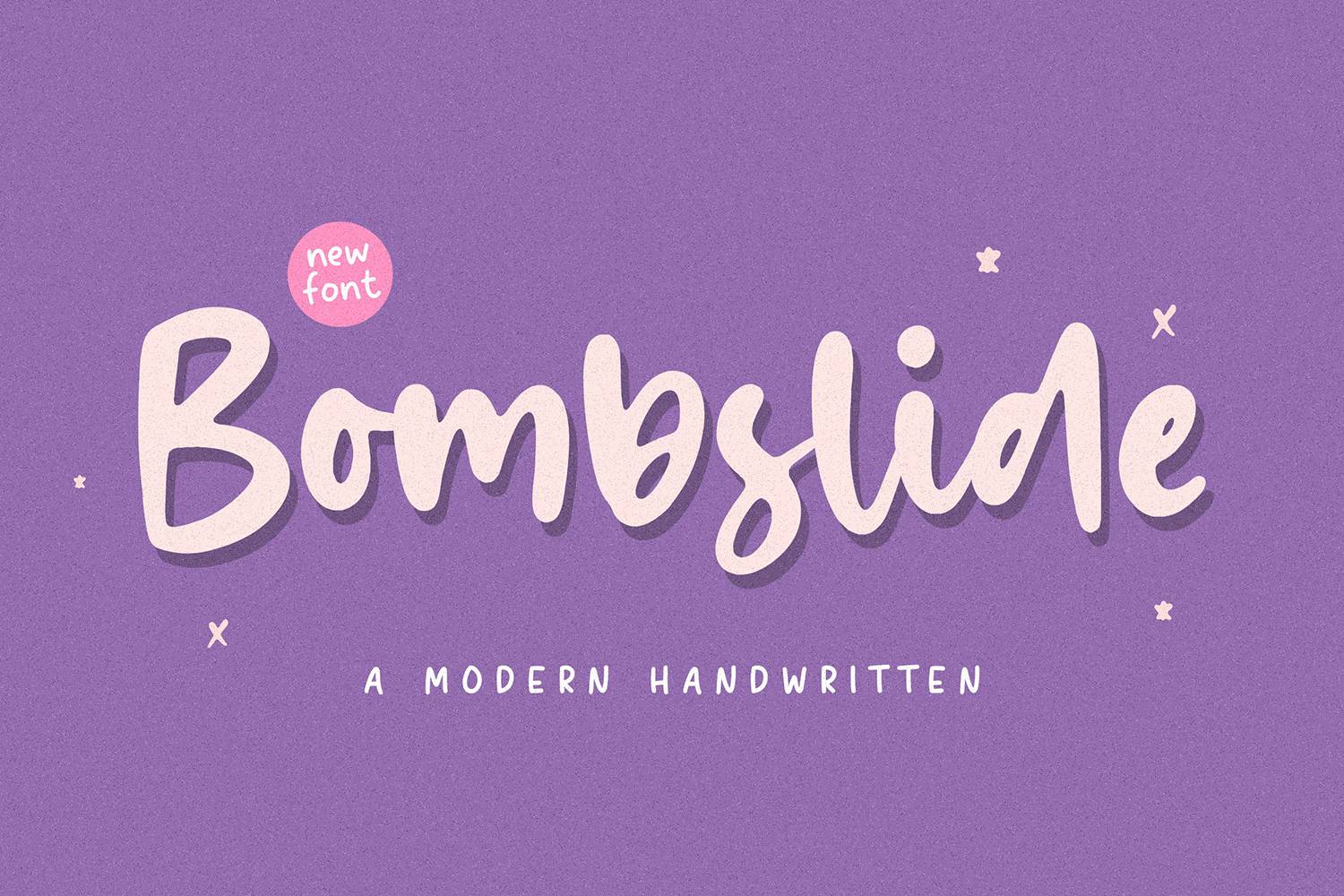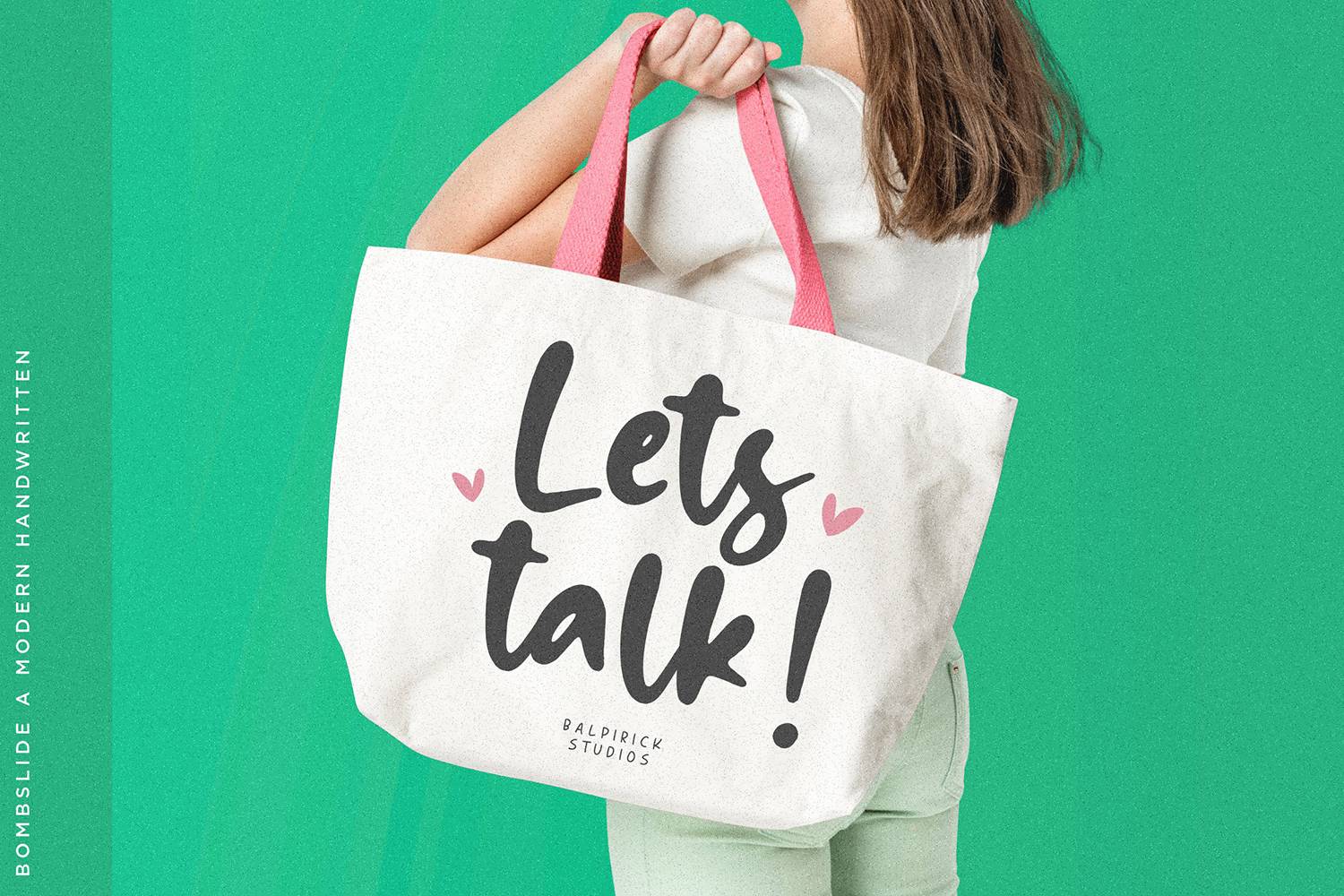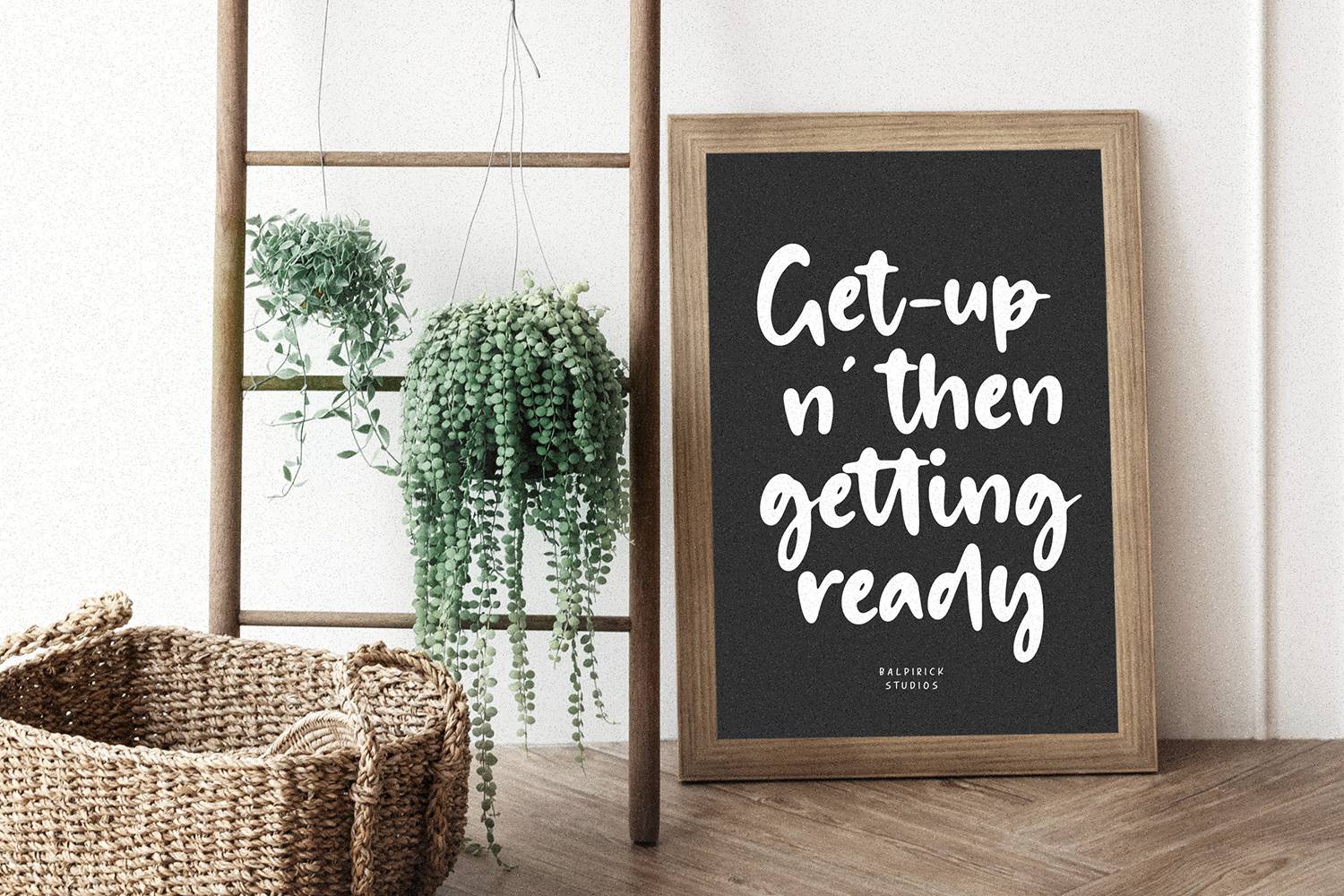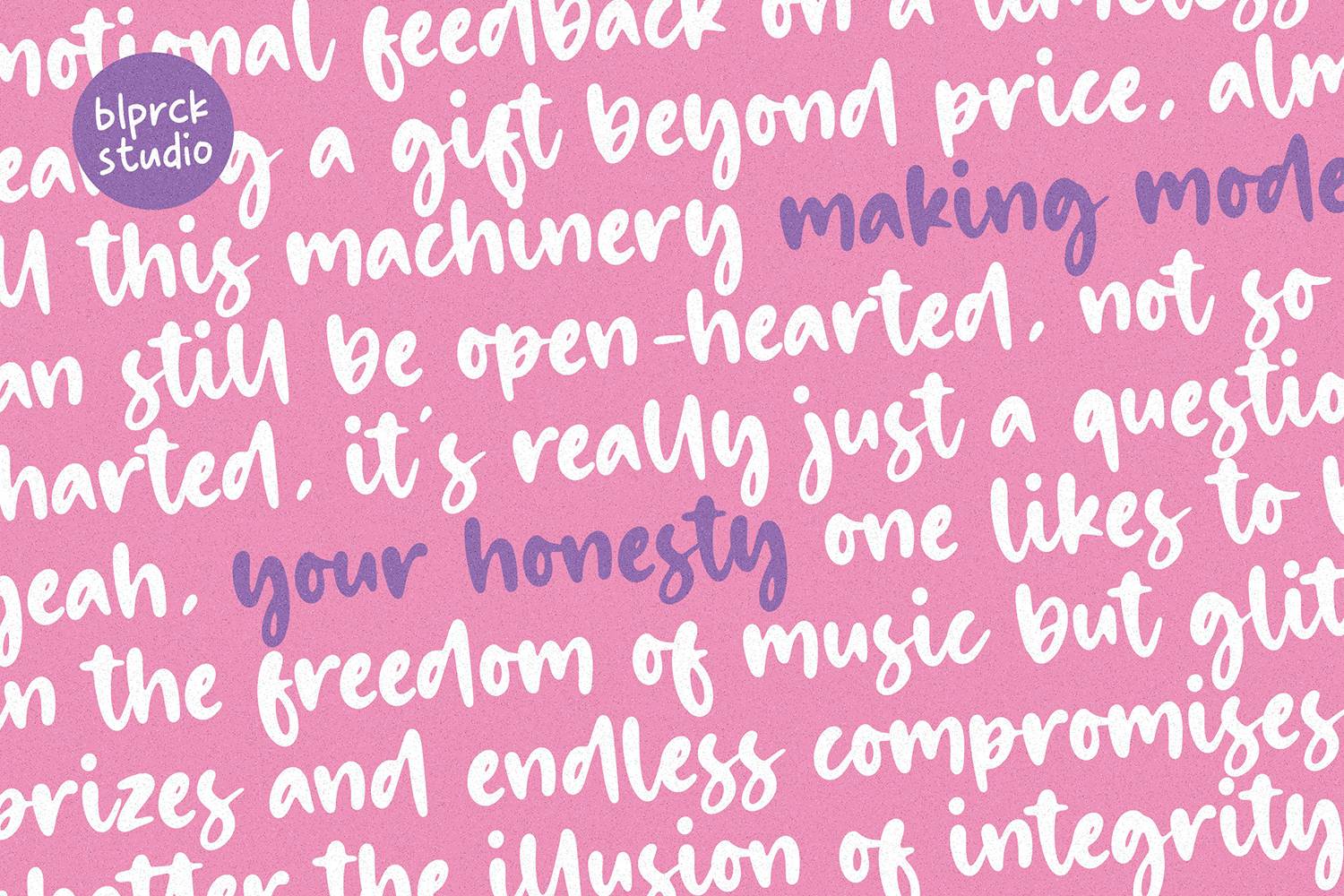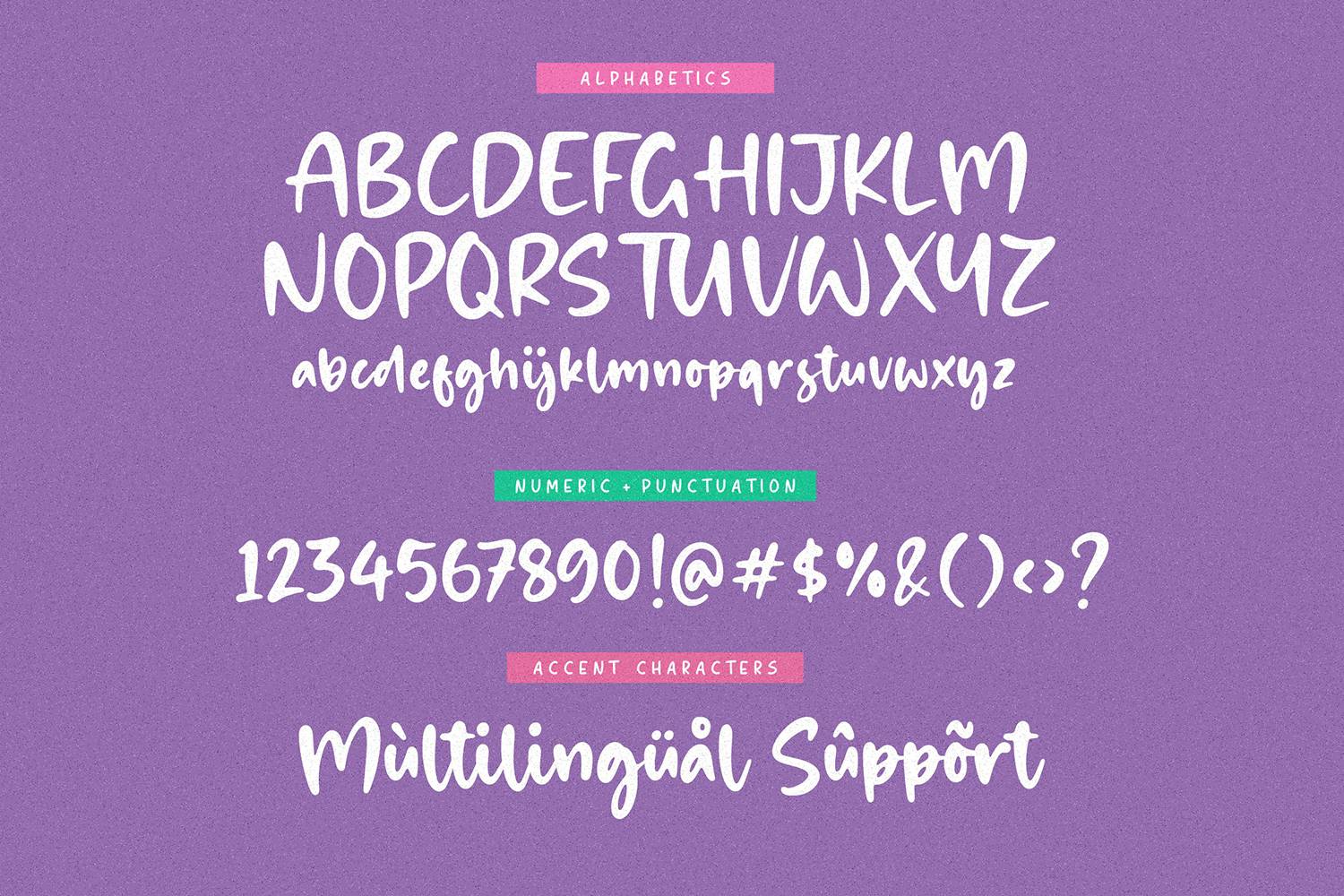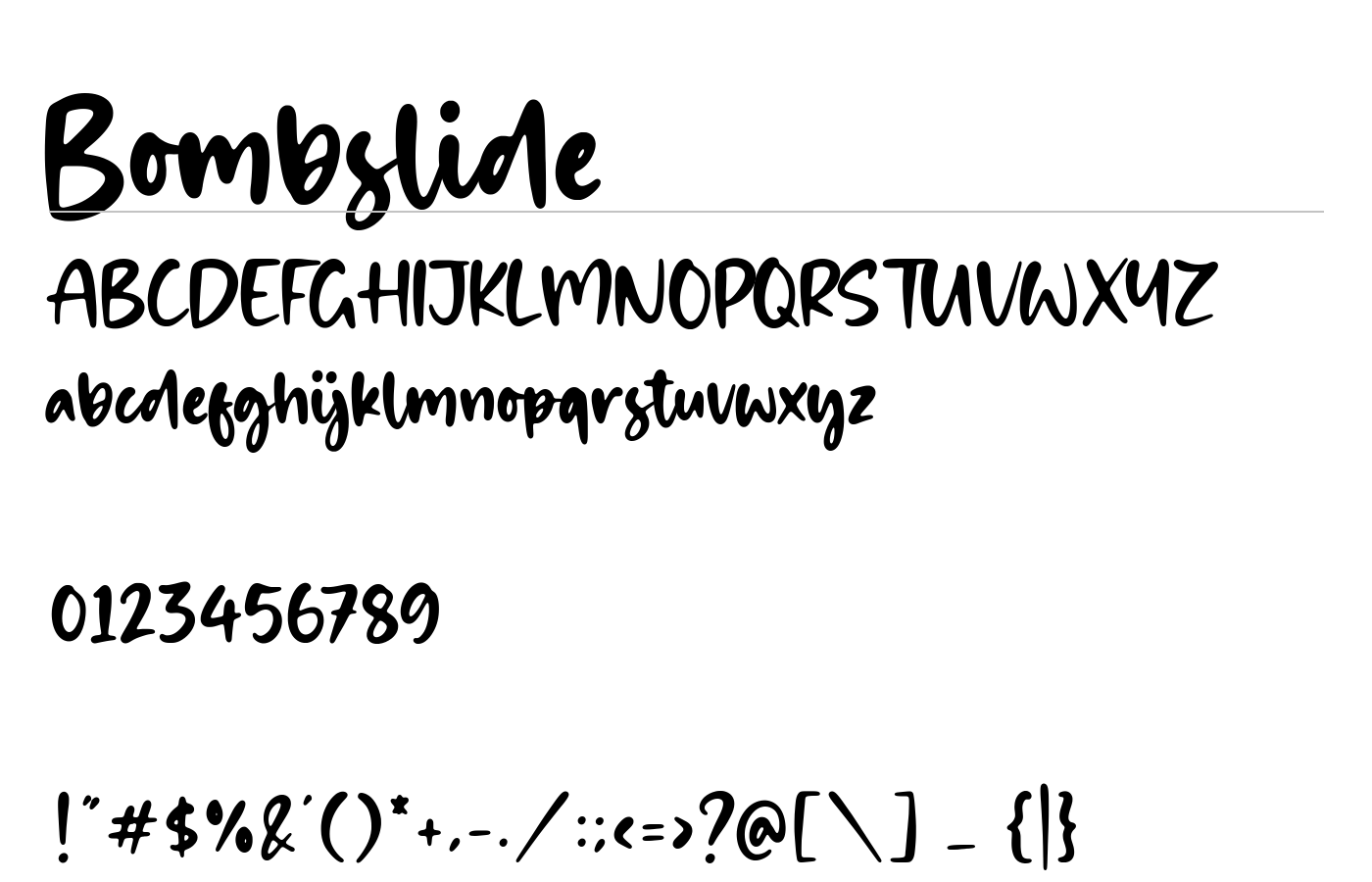
Bombslide is a playful, hand-drawn script font with a casual and friendly vibe. Its slightly uneven strokes and rounded edges give it an approachable and dynamic feel, making it ideal for creative projects, informal branding, and fun headlines where a personal touch is needed. This font works well in designs that want to convey warmth, energy, and originality without being too formal.
Bombslide Font